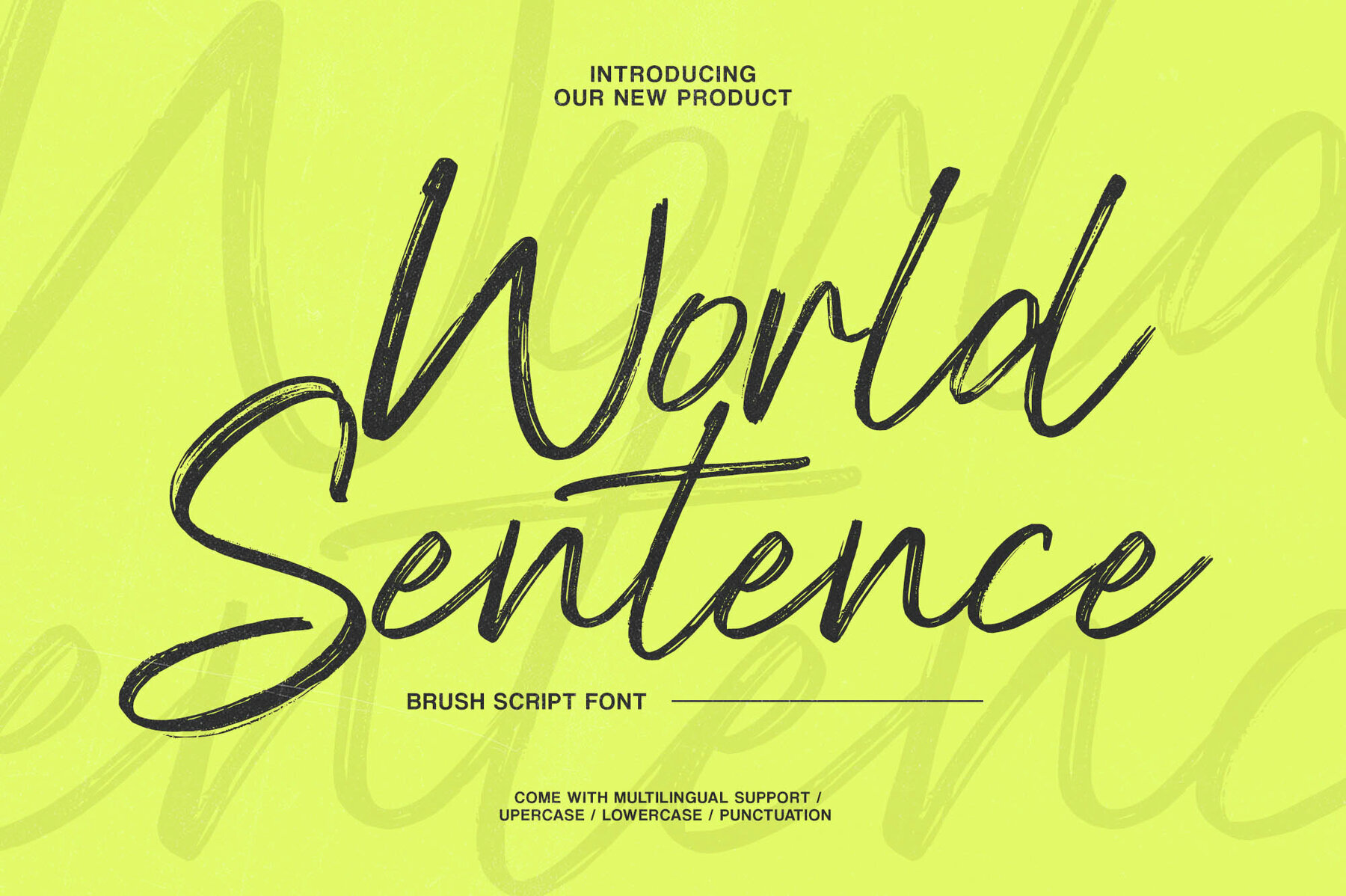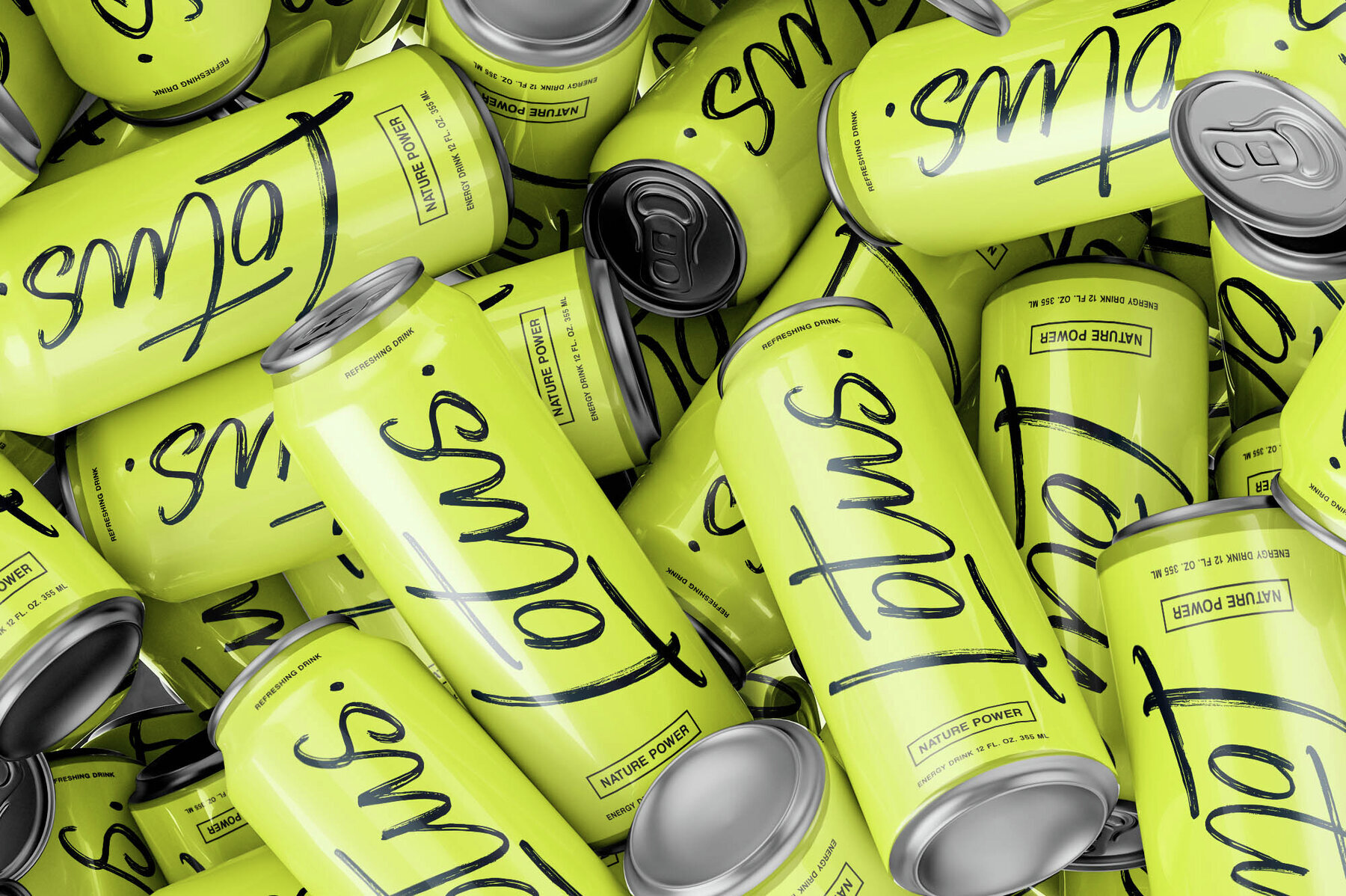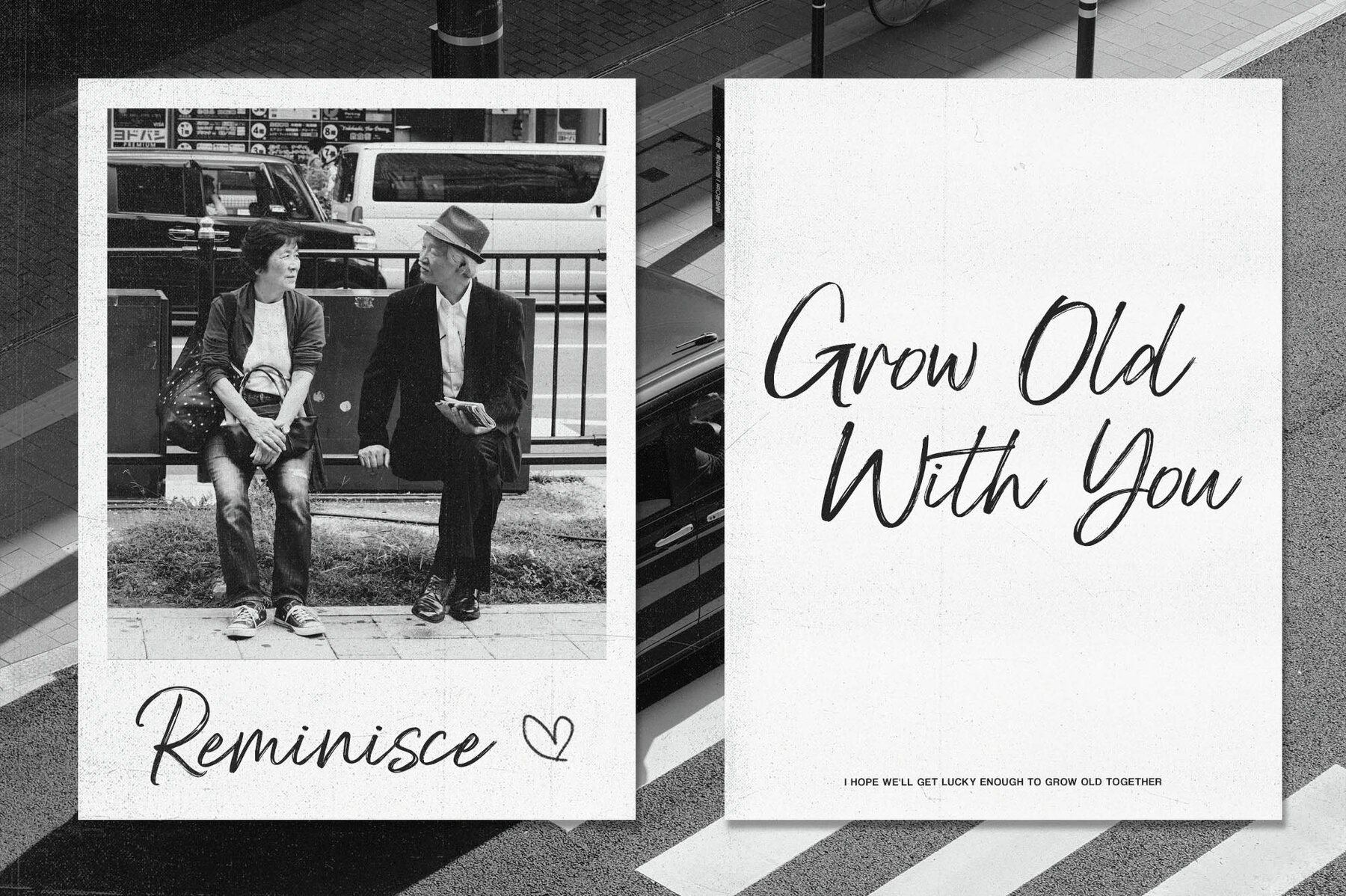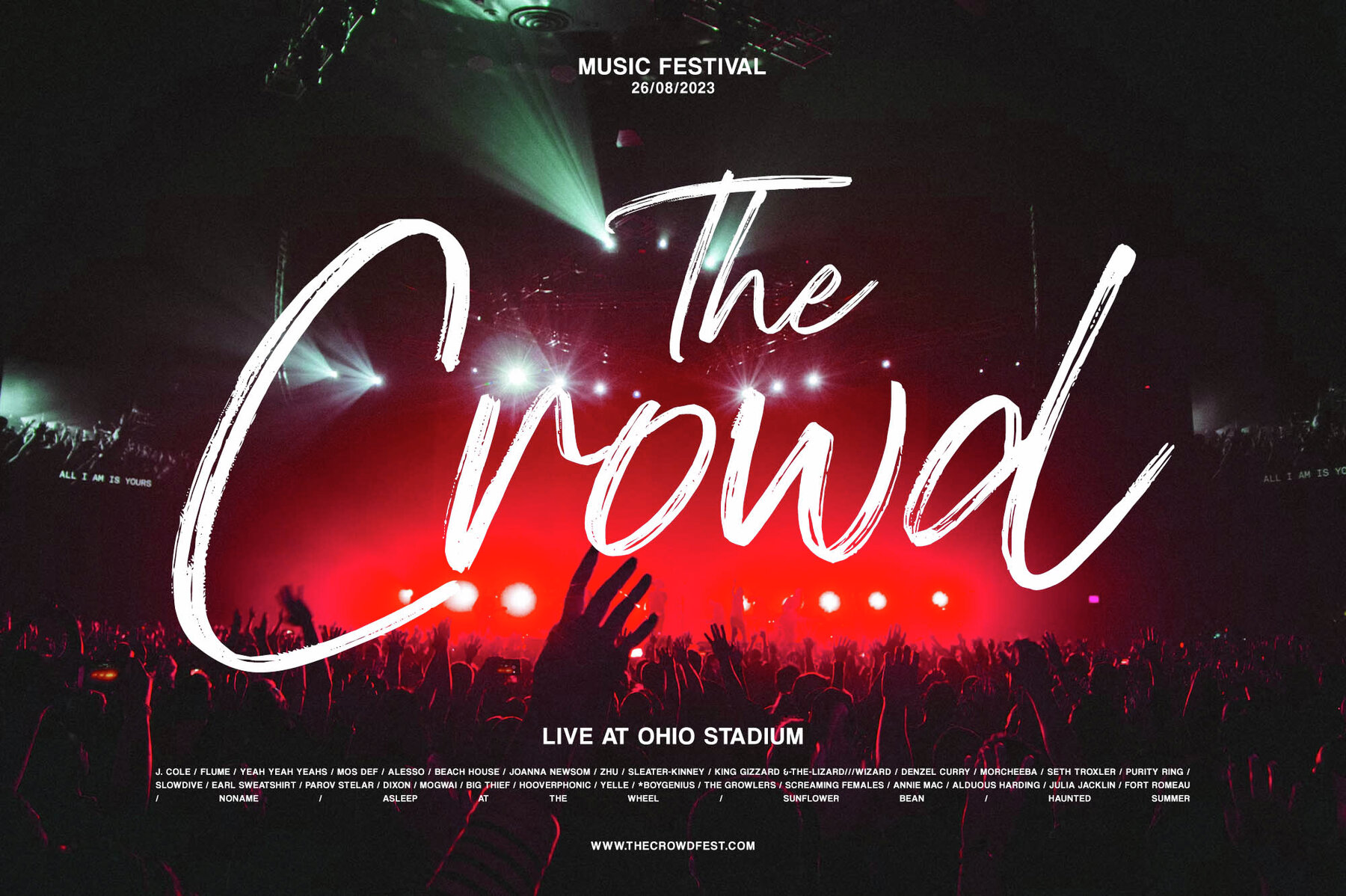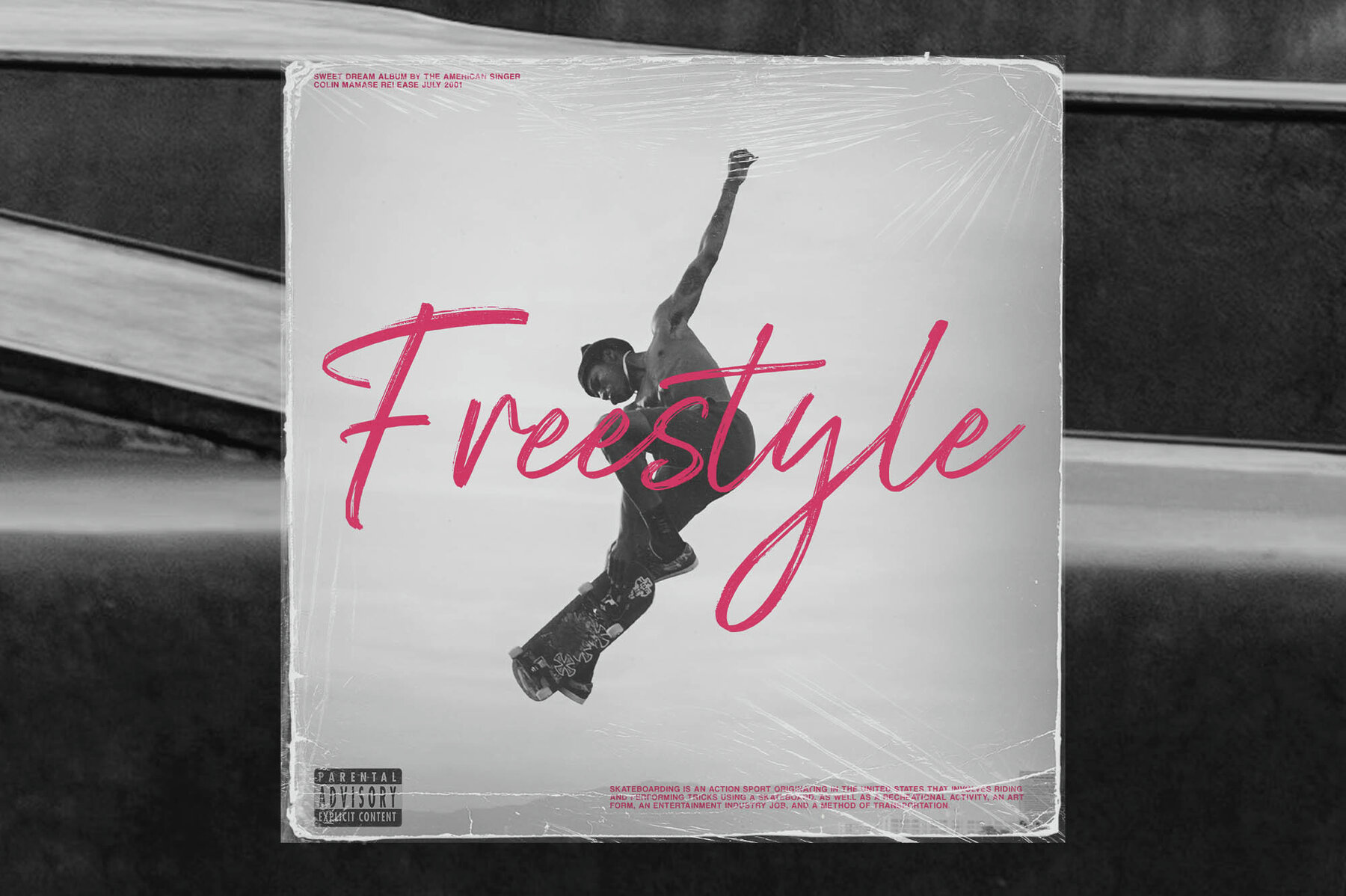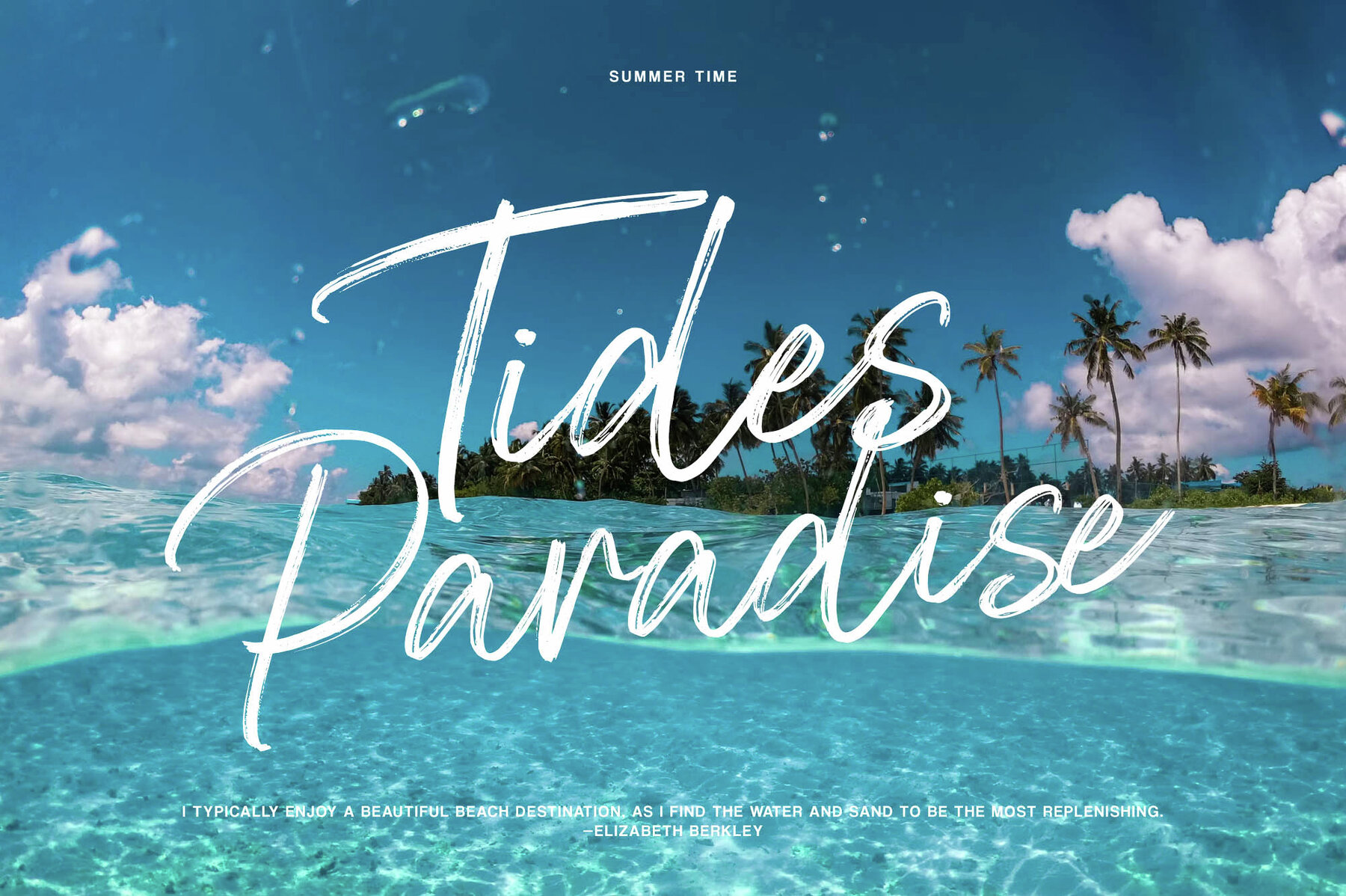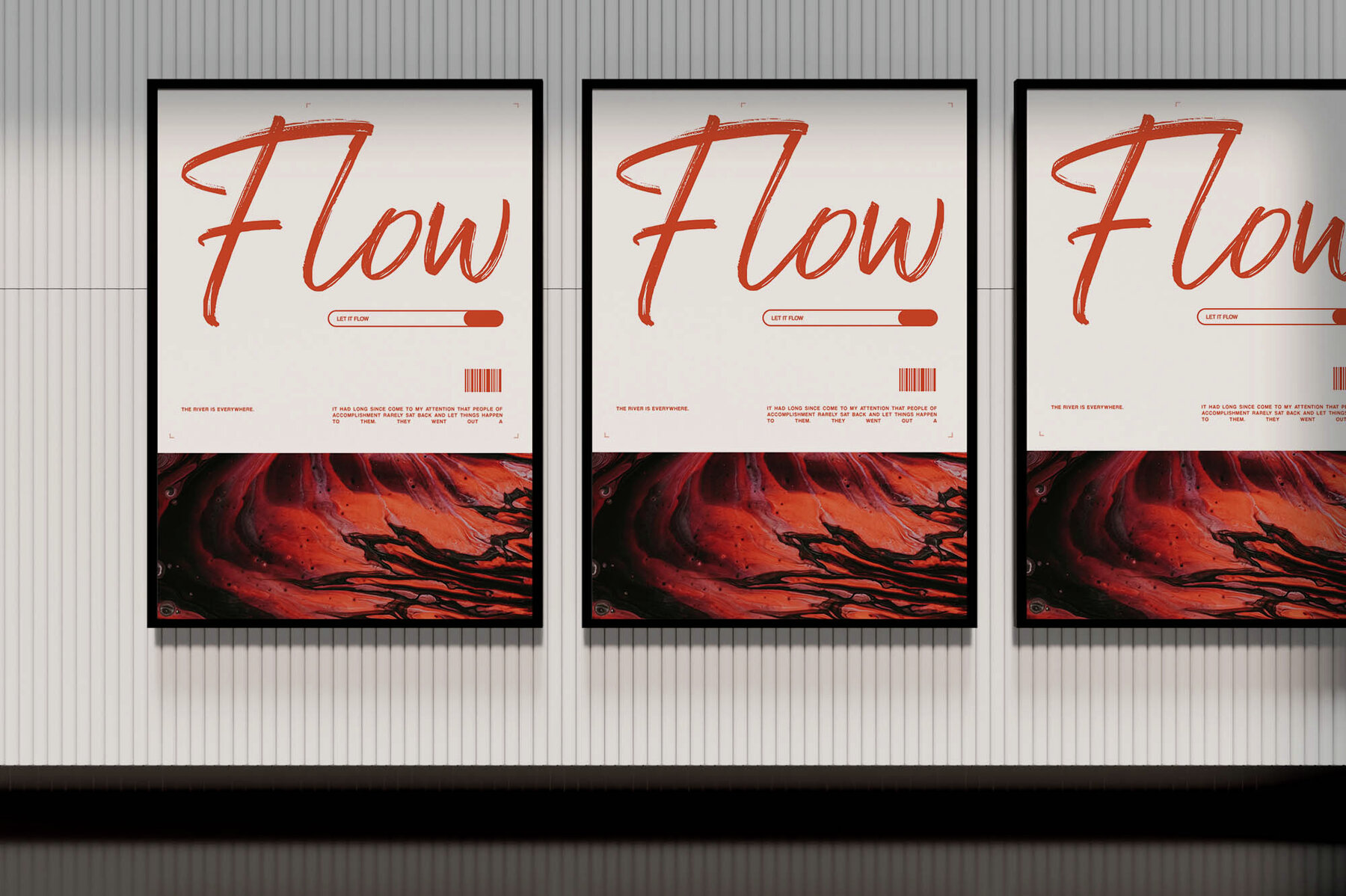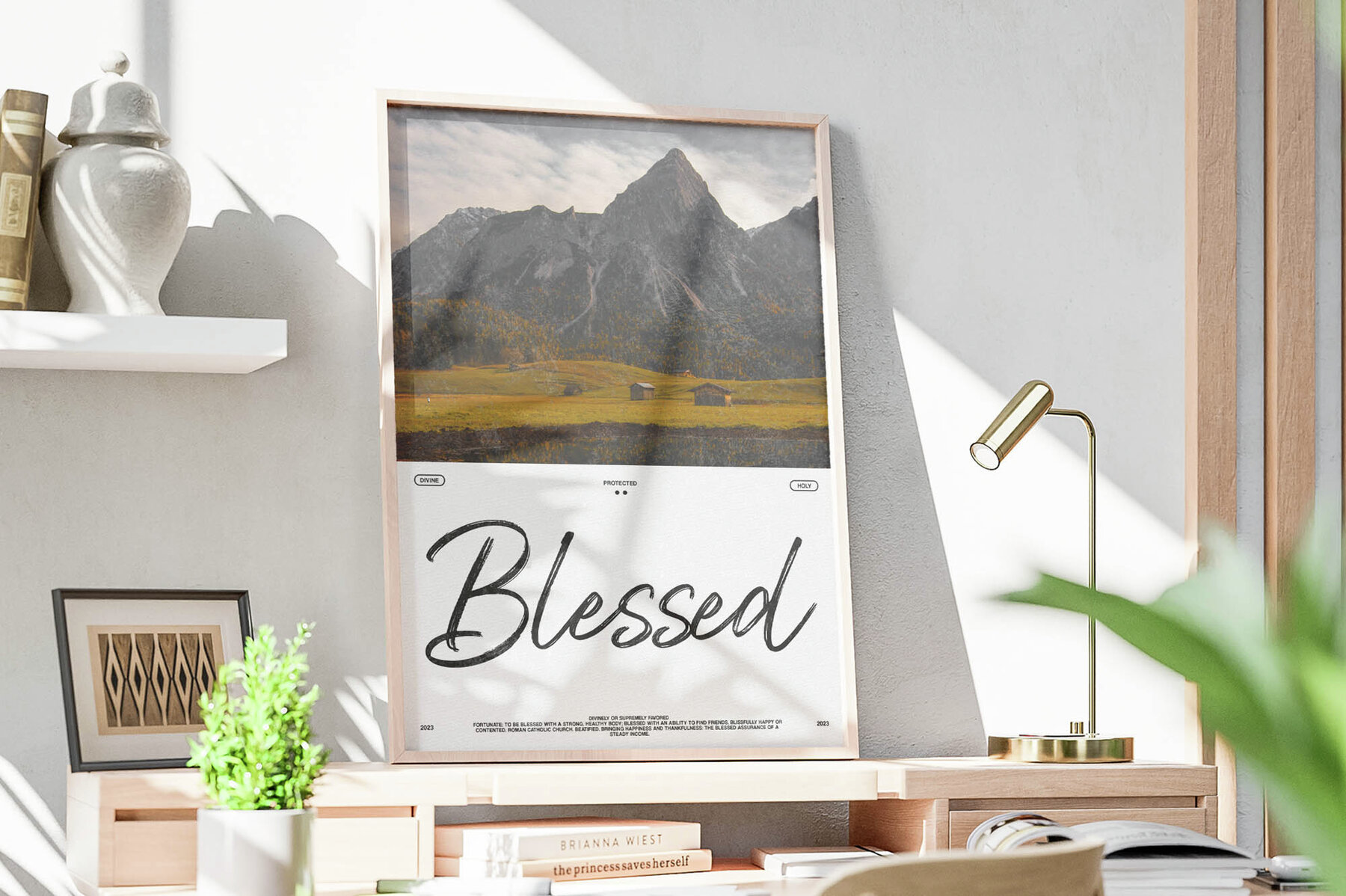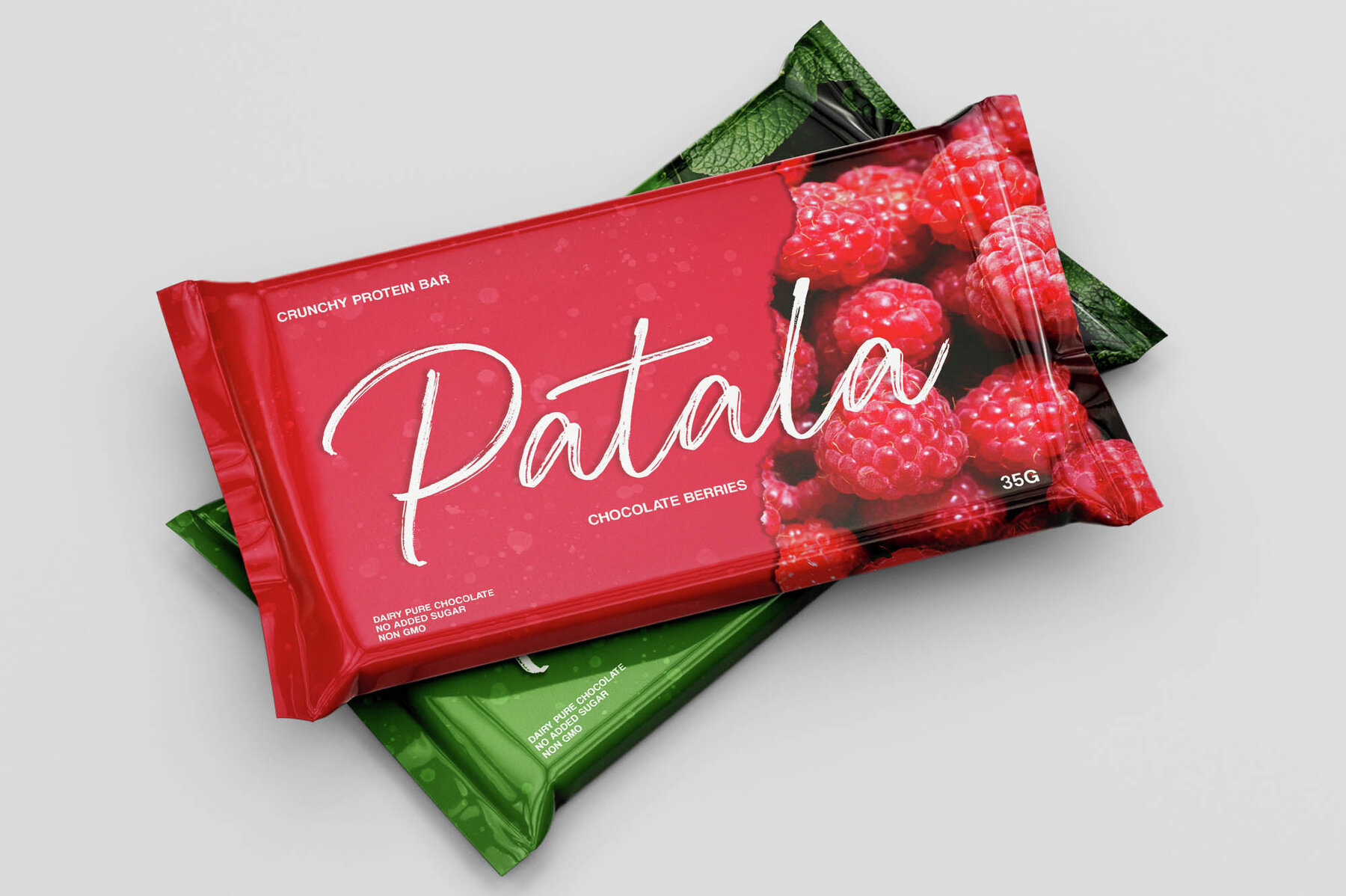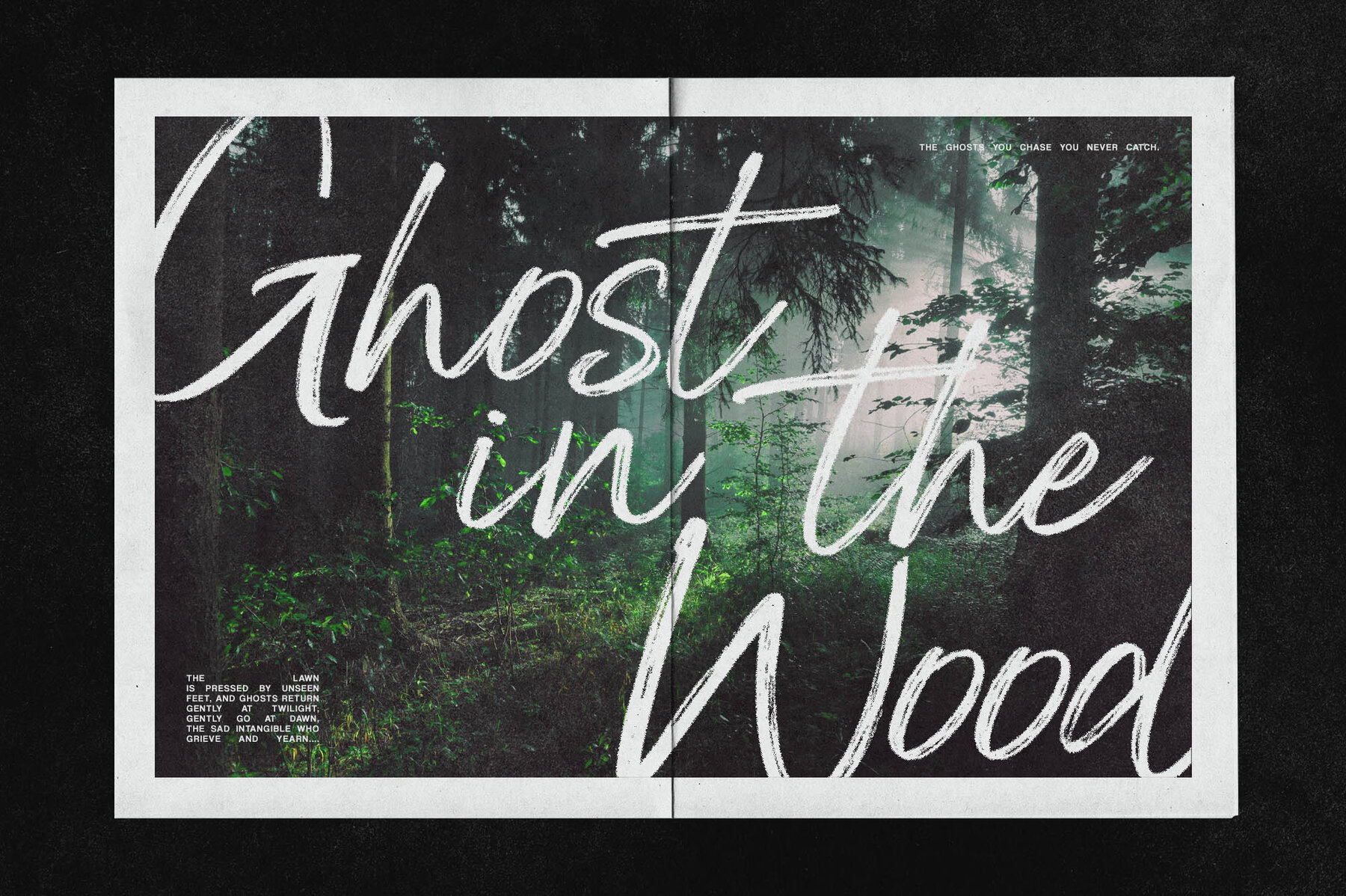
World Sentence Font
World Sentence Regular
World Sentence is a captivating script brush font designed by Sizimon. It combines expressive strokes with an artistic flair, making it an ideal choice for projects that require a touch of creativity and personal expression.World Sentence by Sizimon: Dynamic Script Brush Font
Features of World Sentence
Design Suitability